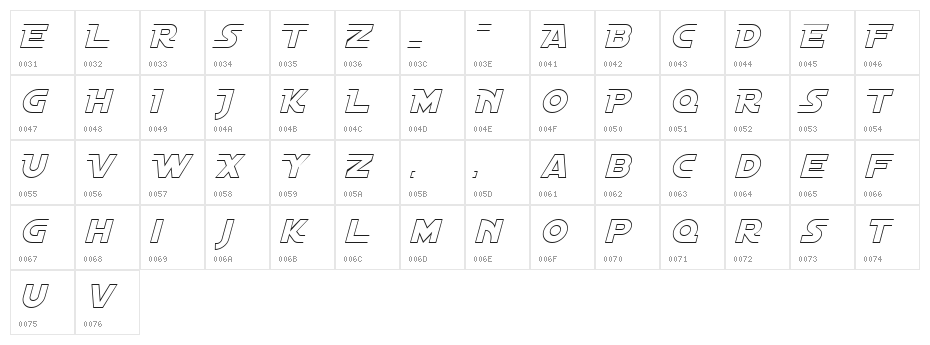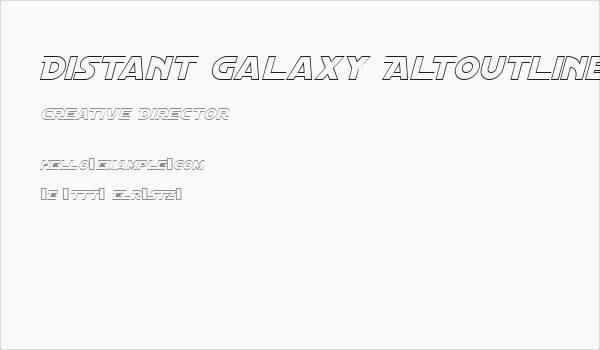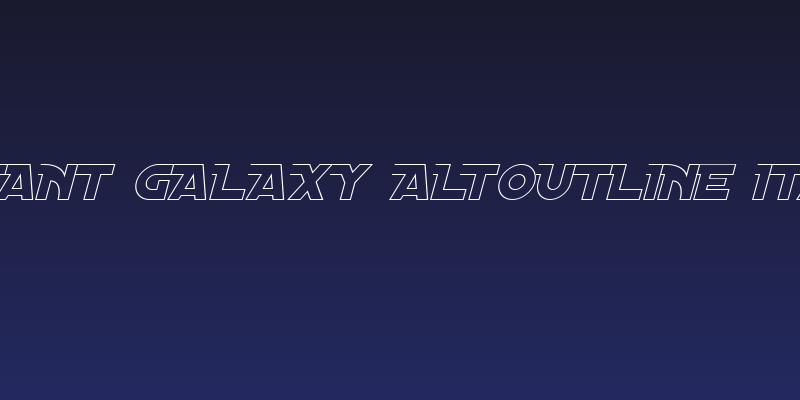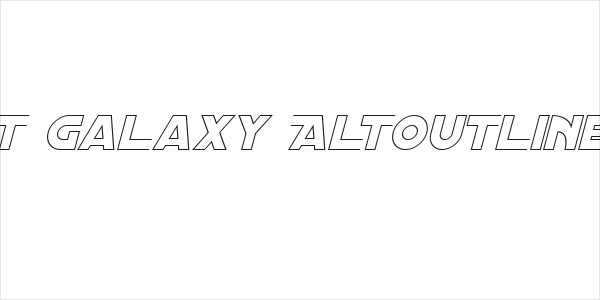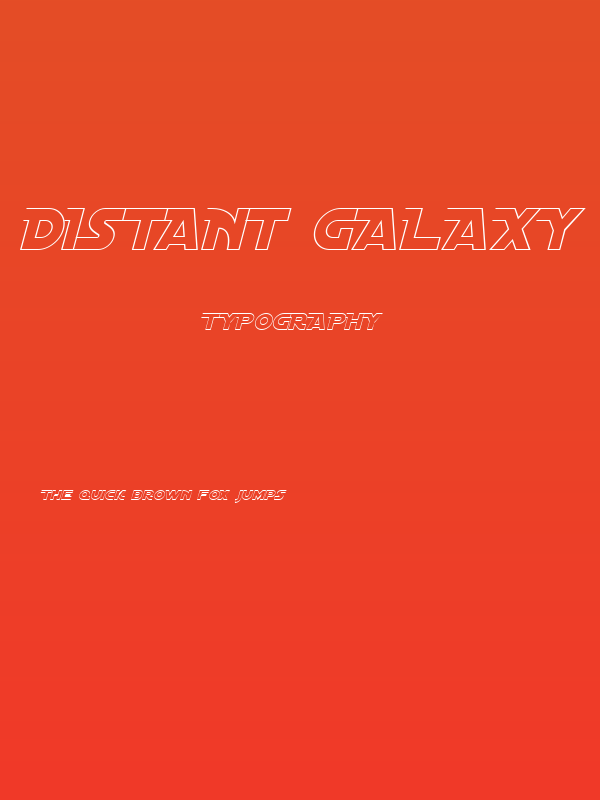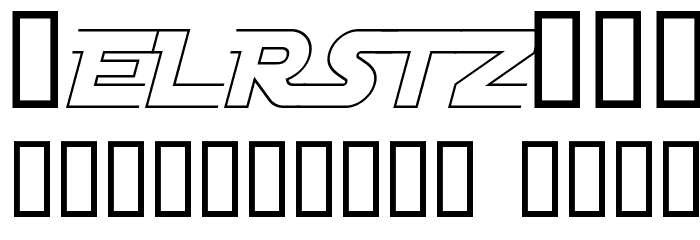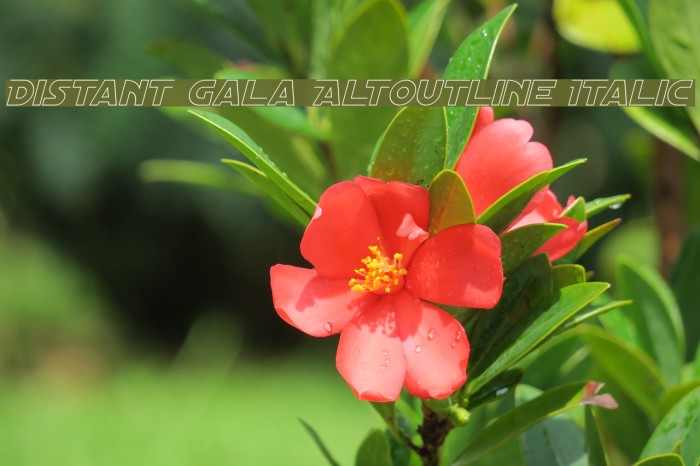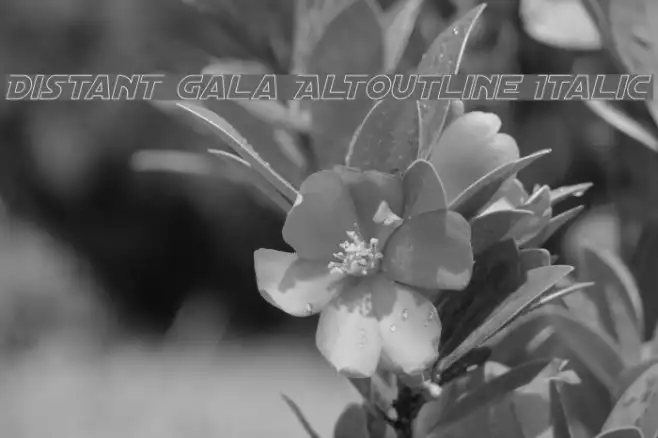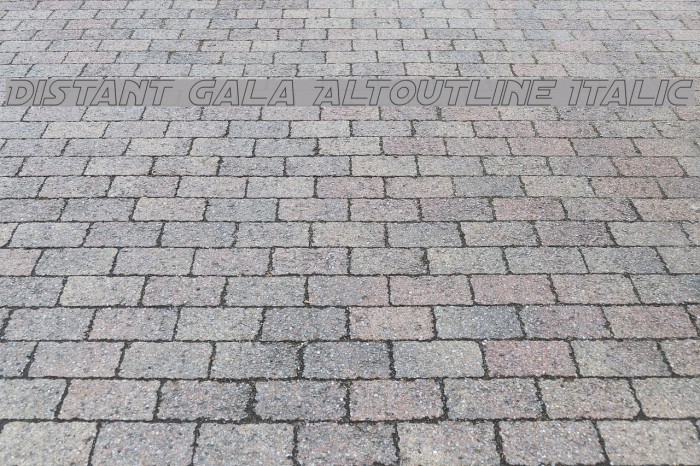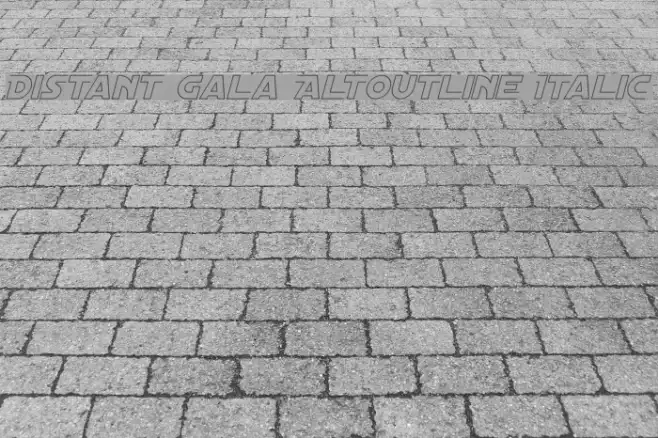
Distant Galaxy AltOutline Italic Font
Distant Galaxy AltOutline Italic Description
This font features a futuristic and dynamic outline style, characterized by its italicized and angular letterforms. The design is sleek and modern, with a distinct geometric influence that gives it a sense of movement and energy. The uppercase letters are bold and commanding, while the lowercase letters maintain a consistent style that complements the overall aesthetic. The numbers and special characters are designed to match the angular and outlined theme, ensuring a cohesive look across all characters. This font is perfect for projects that require a modern and edgy appearance.
| Proposed Projects | Ideal for sci-fi themed designs, video game titles, tech branding, and futuristic posters. |